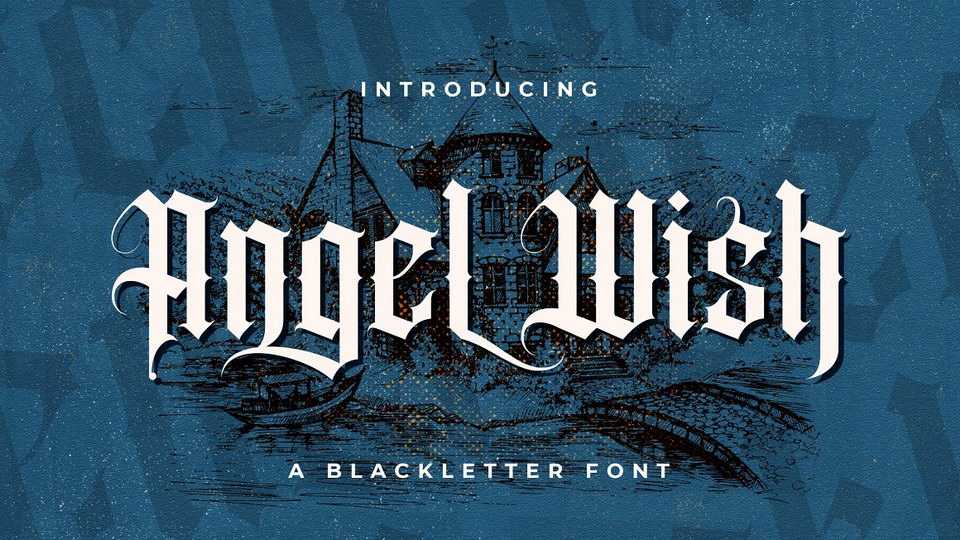
Download Angel Wish font, an incredibly authentic and daring blackletter typeface. Angel Wish font is ideal for branding, posters, headlines and decorative typesetting.